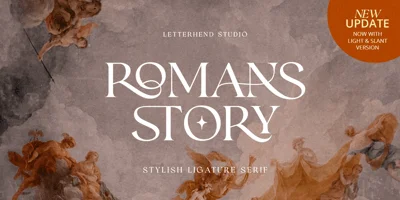
Romans Story Font
The Romans Story Font is perfect for classical historical design projects including ancient history documentaries, archaeological museum displays, Roman-themed educational materials, historical novel covers, classical architecture presentations, Latin language publications, heritage tourism marketing, and epic historical film titles. This majestic typeface brings imperial grandeur and ancient Roman authenticity to any design project celebrating classical civilization and historical storytelling with monumental dignity.
What makes Romans Story Font so exciting is its magnificent embodiment of Roman imperial legacy with letterforms that capture the essence of ancient Roman inscriptions and classical architectural grandeur. The letters feature monumental characteristics with classical proportions that create an immediate sense of historical authority and imperial magnificence. This distinctive classical character makes it perfect for projects that want to communicate historical authenticity, classical education, and the enduring appeal of Roman civilization and ancient storytelling traditions.
The Romans Story Font family typically includes regular and bold weights, often with stone-carved variations and classical decorative elements. Many versions feature Roman numerals, archaeological symbols, and historical design elements that enhance its authenticity for educational and cultural heritage applications.
Whether you're designing for museums, educational institutions, or historical entertainment projects, Romans Story Font offers the perfect solution for projects that need to convey classical authority and ancient grandeur. This font transforms standard historical content into monumental designs that immediately communicate imperial heritage, classical scholarship, and the timeless appeal of Roman civilization to audiences appreciating ancient history and classical cultural traditions.